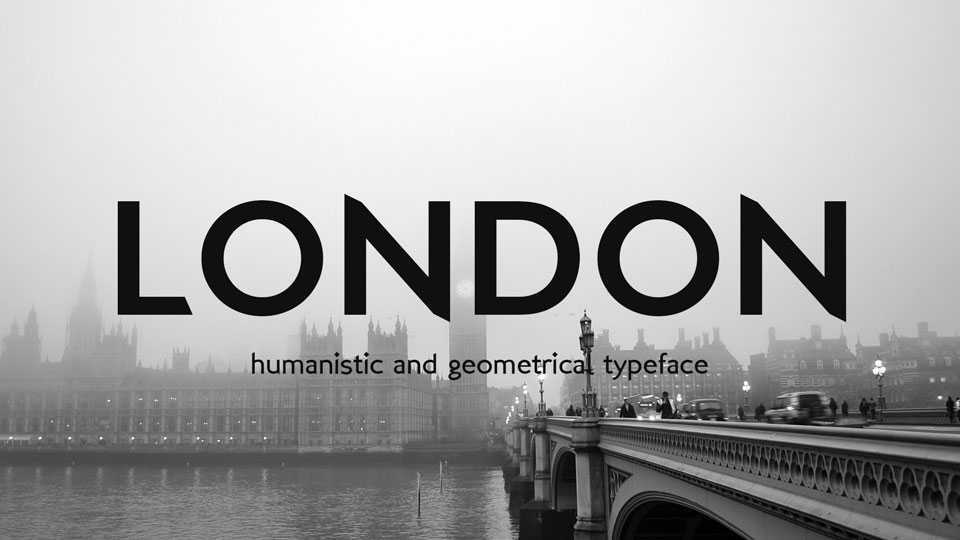
Download London typeface, a modern sans serif font family in three weights that tries to be both humanistic and geometrical. London is great for logos, branding, headlines, banners and posters, social media and more.
Designer: François Bruel